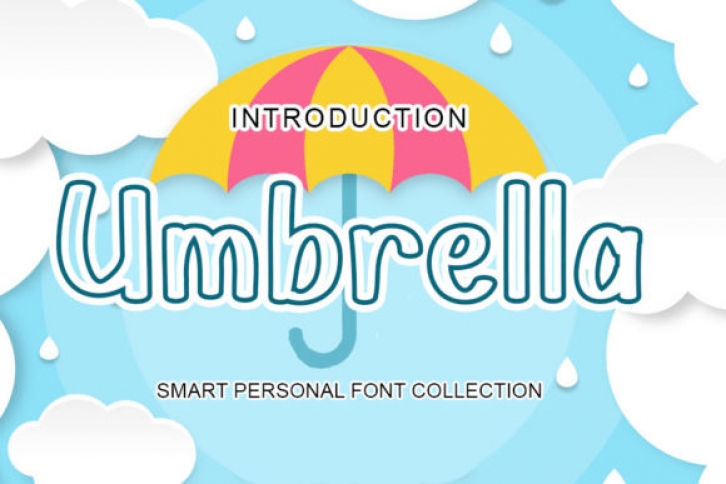
Umbrella is a relaxed outlined display font. It looks joyful and graceful on a variety of design ideas so add it confidently and make your designs come alive.